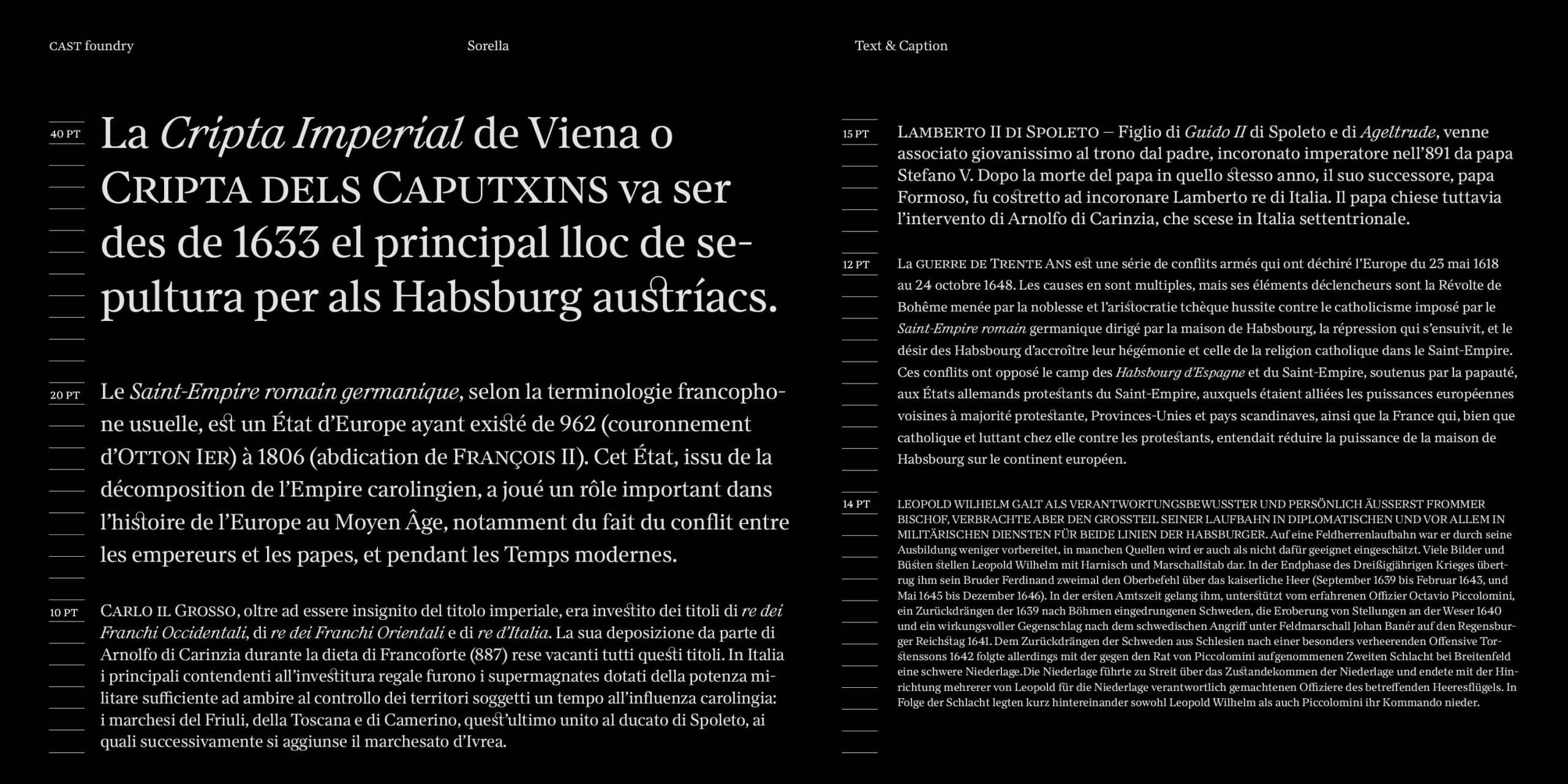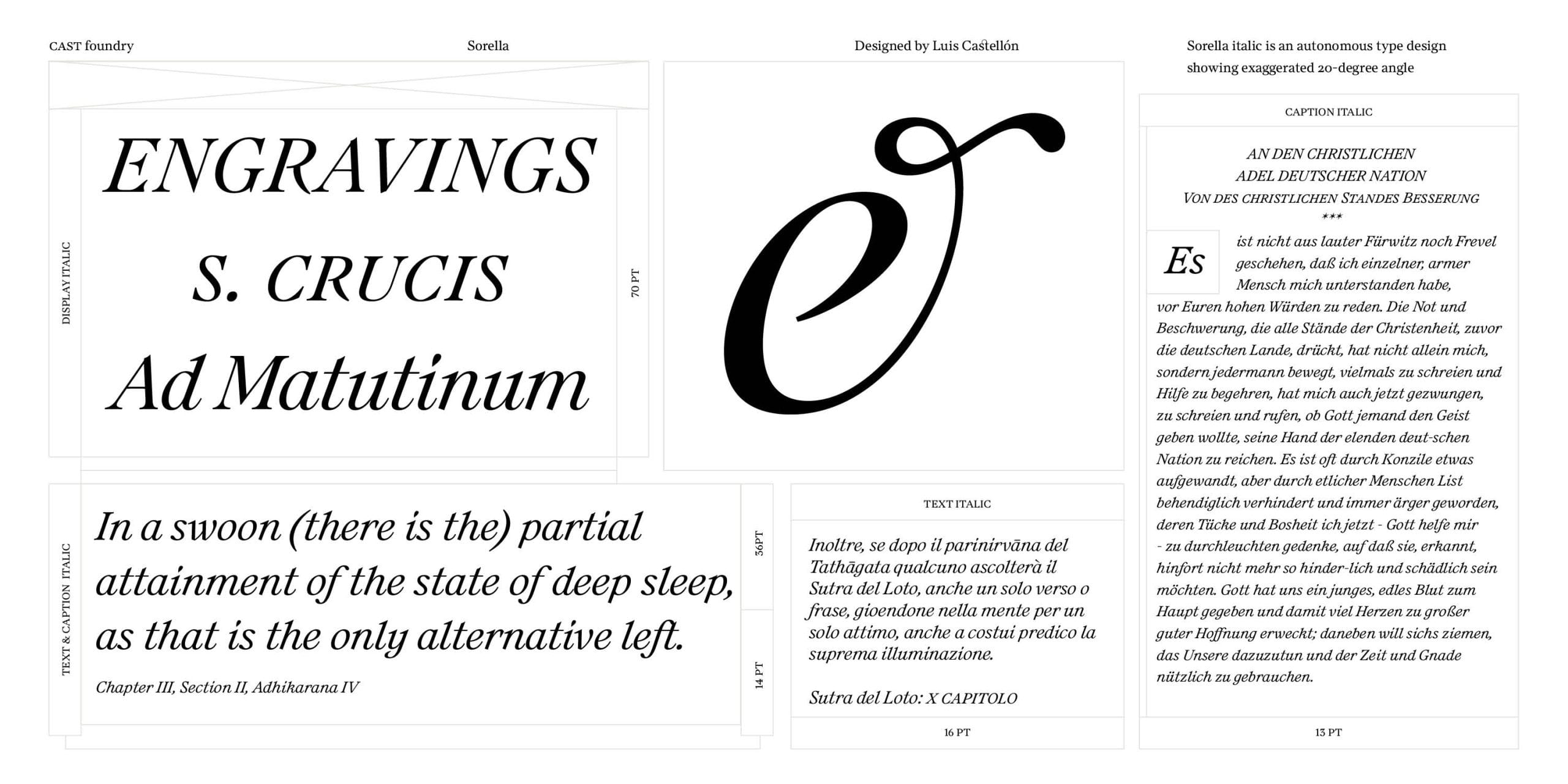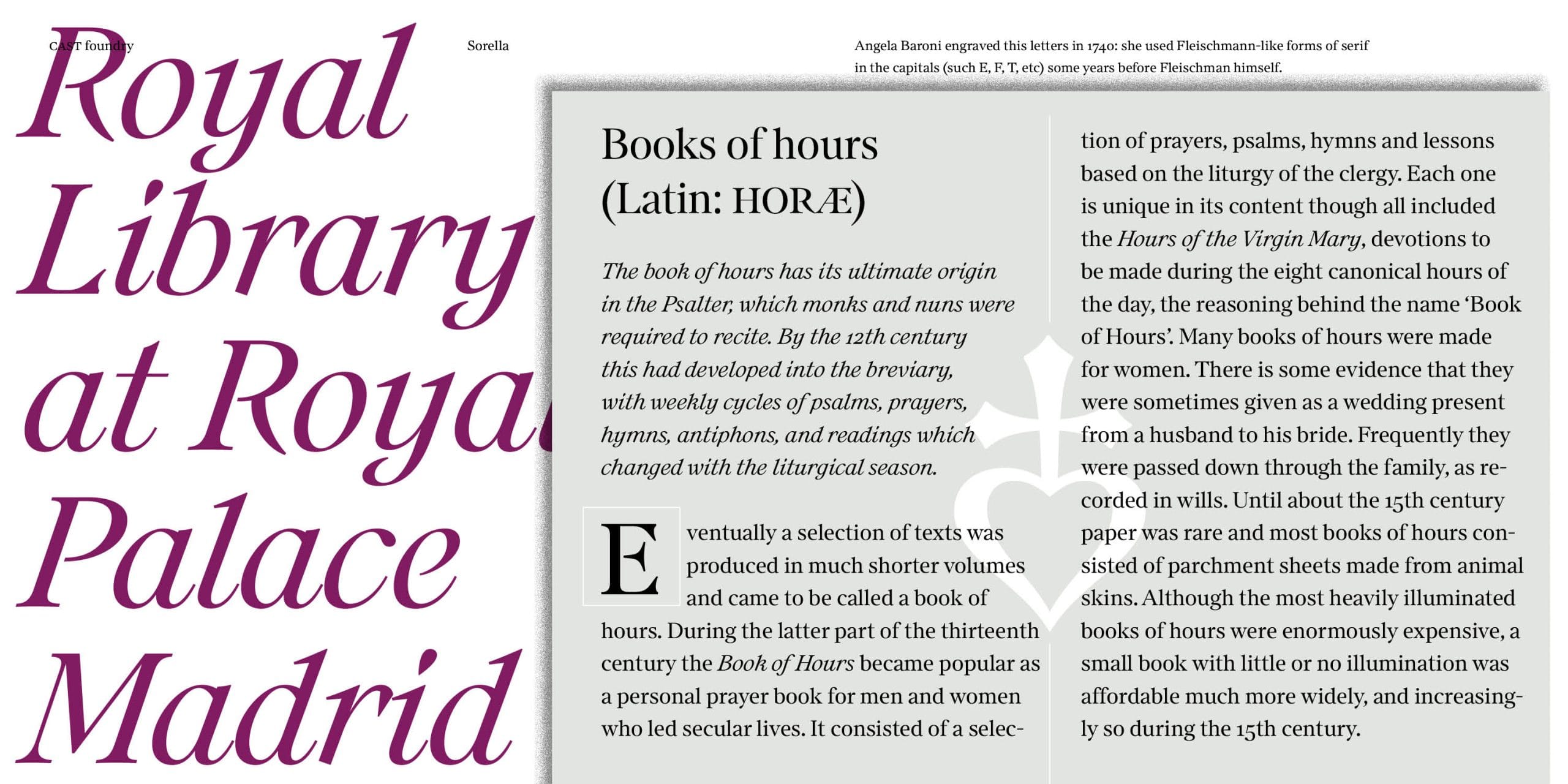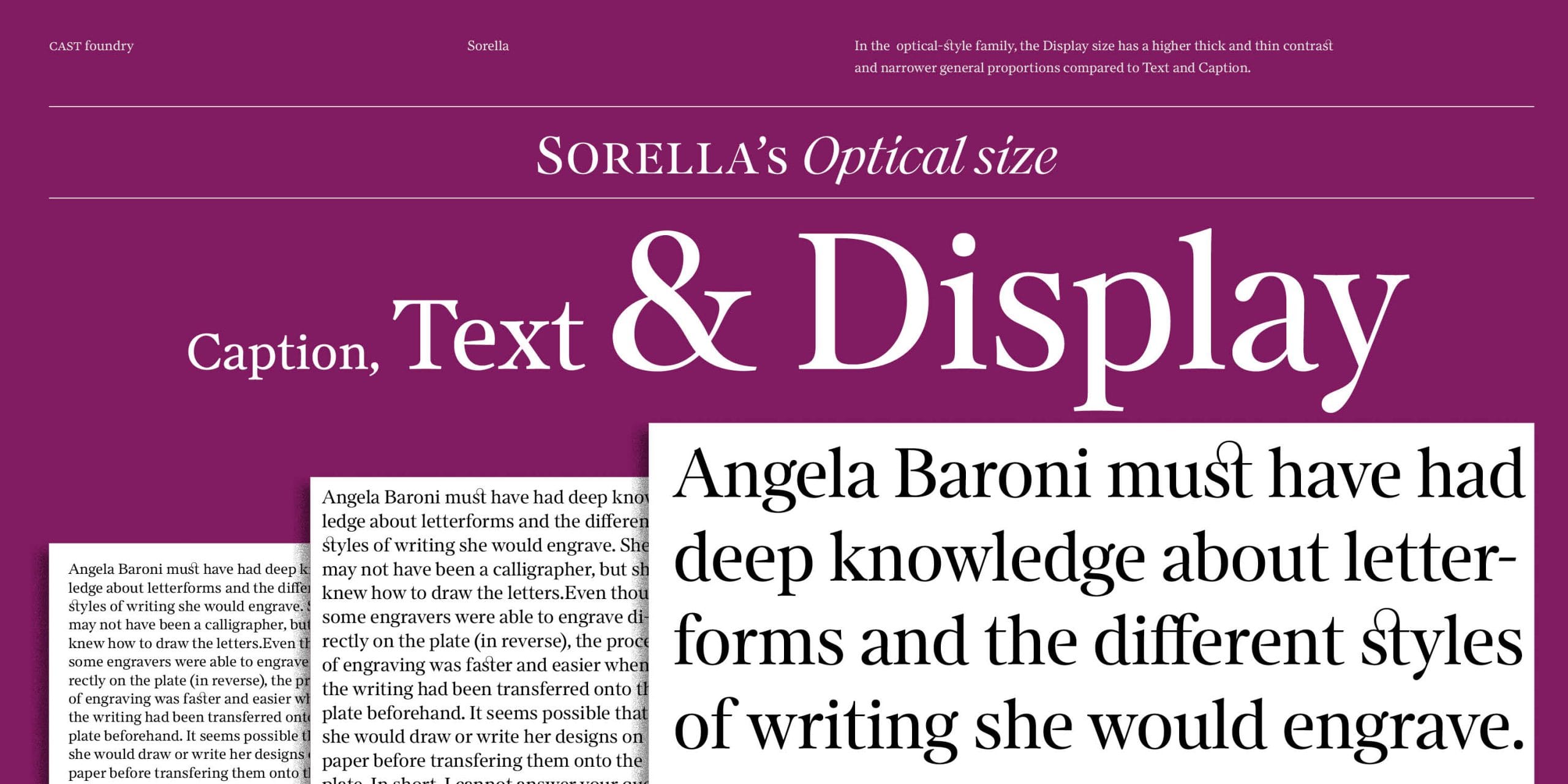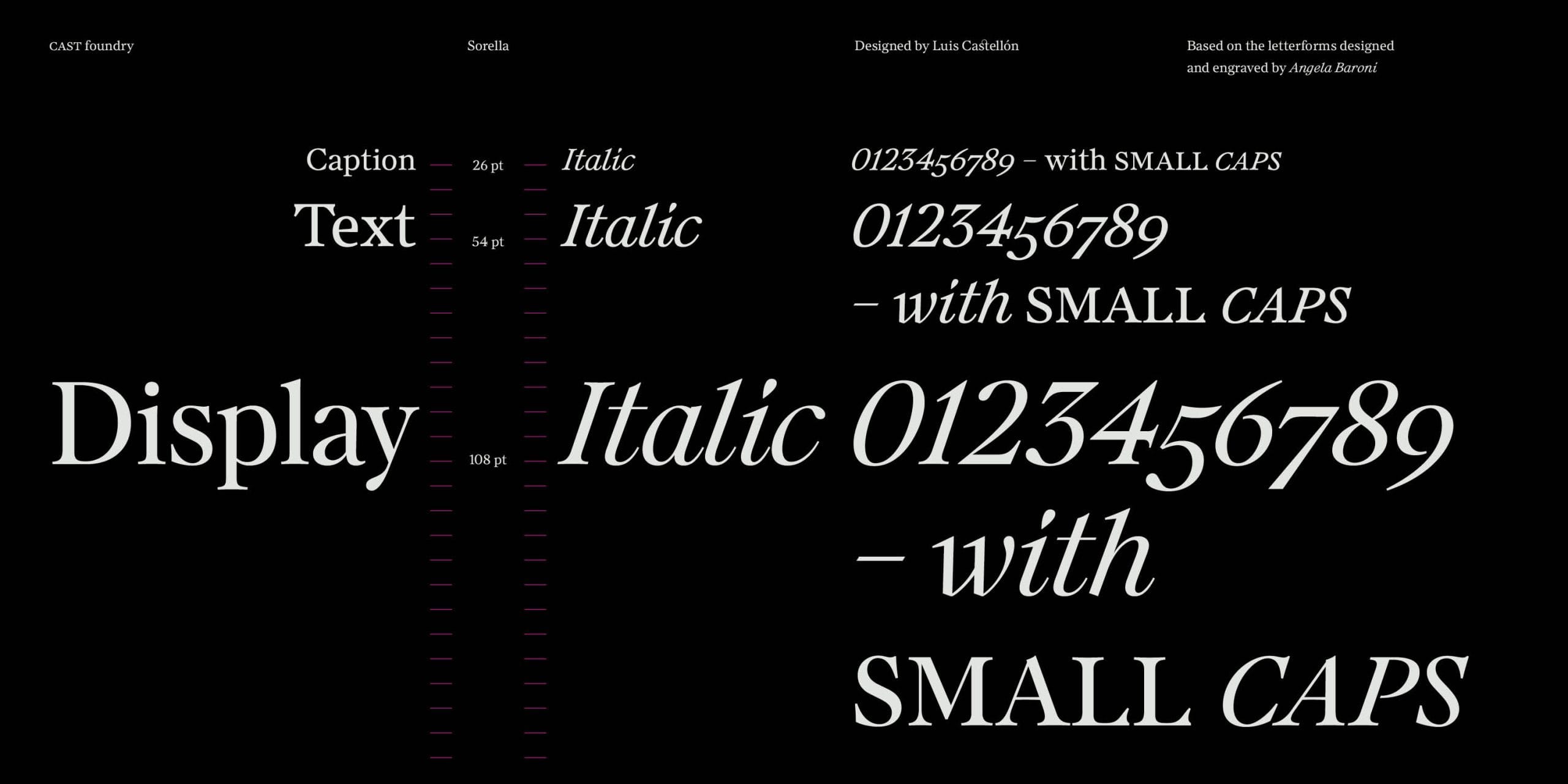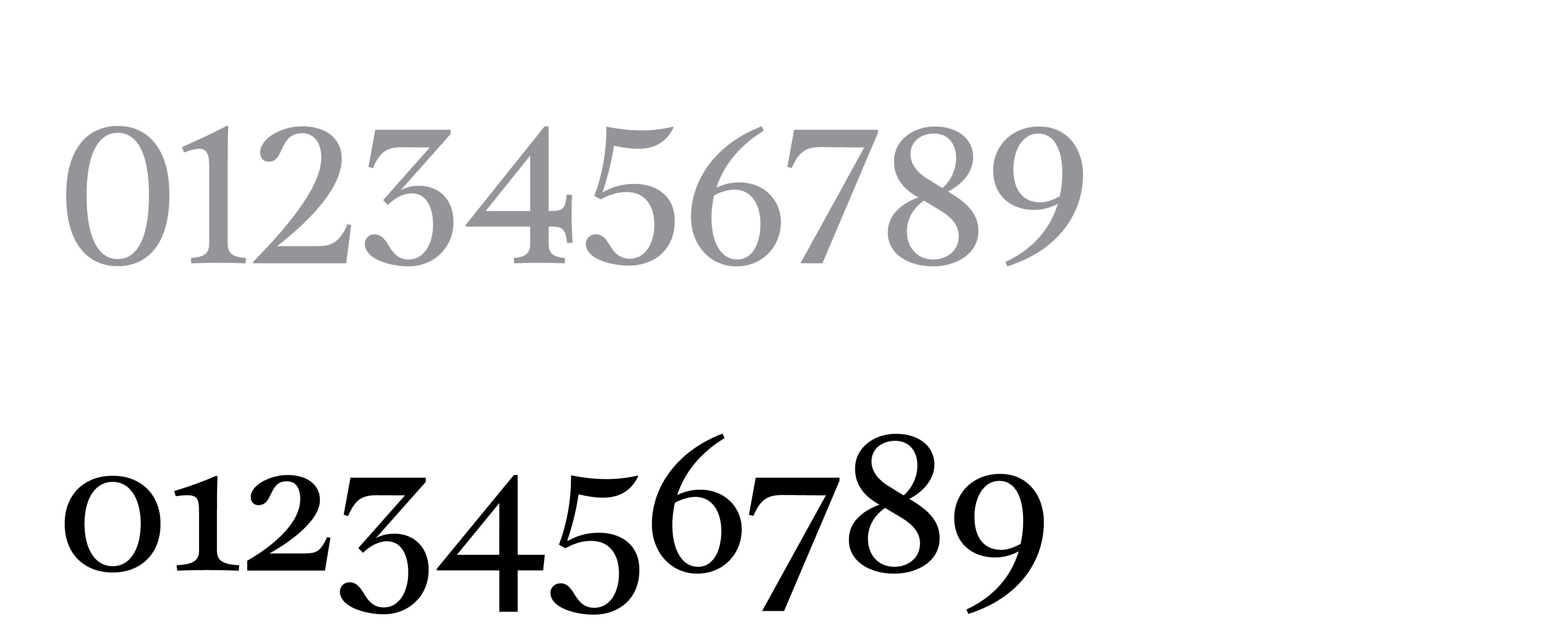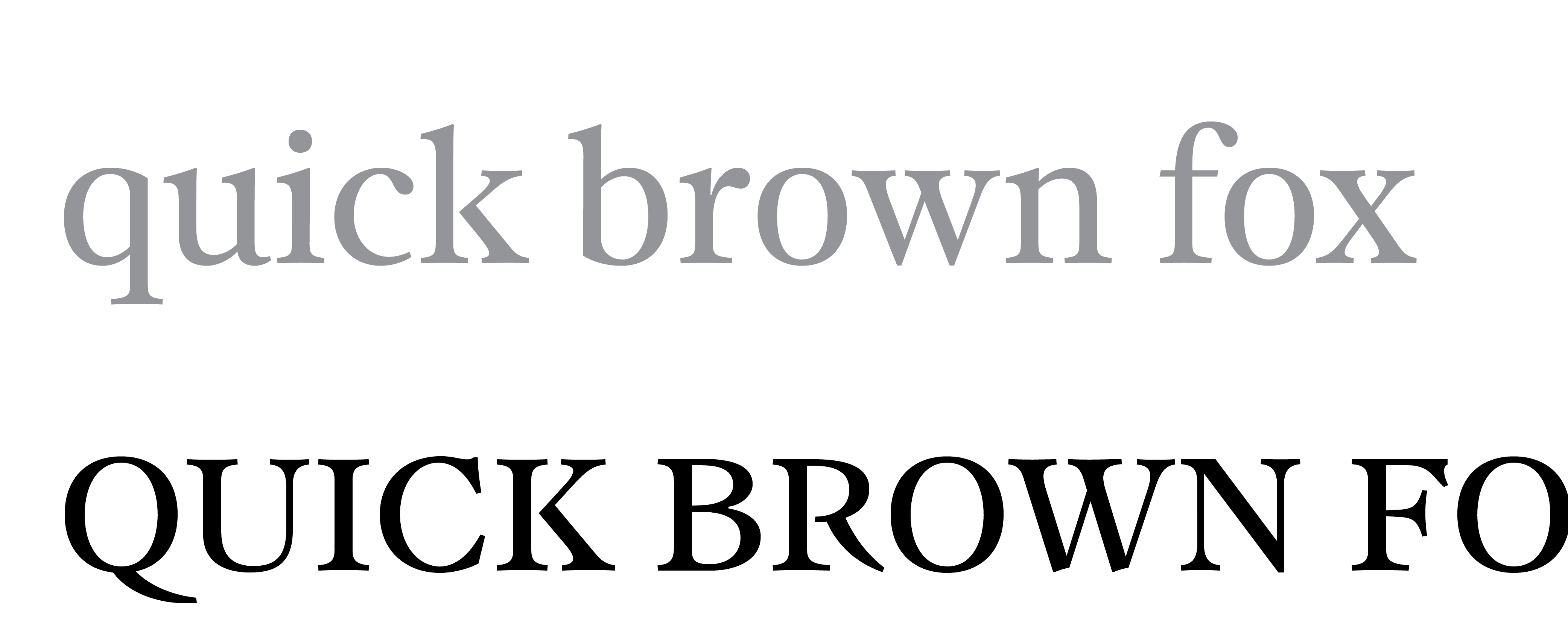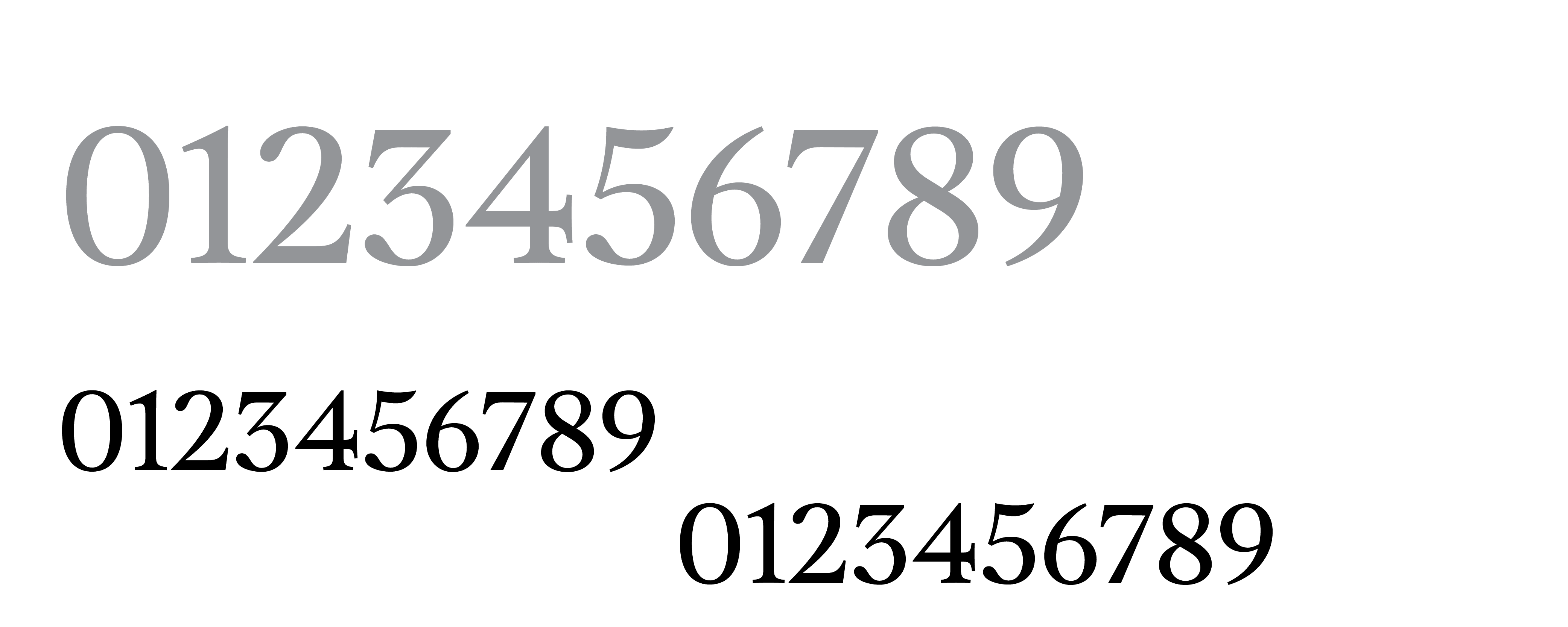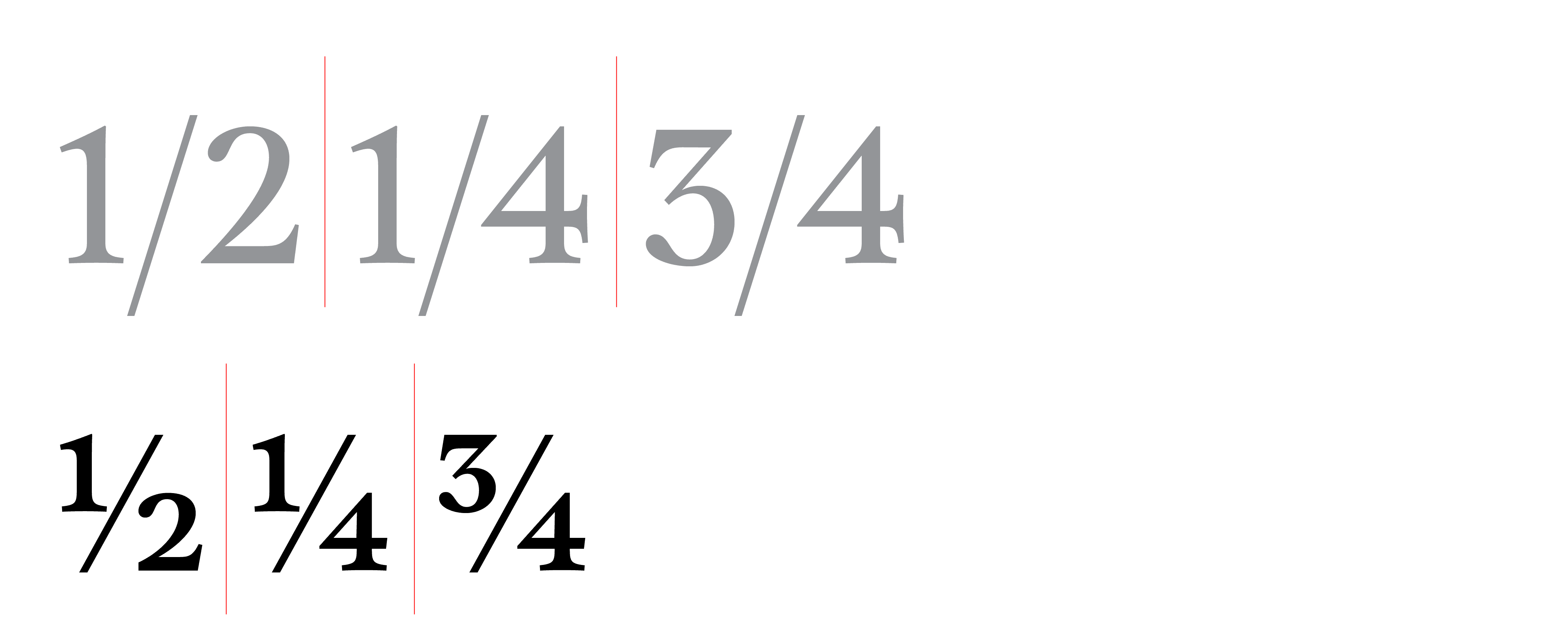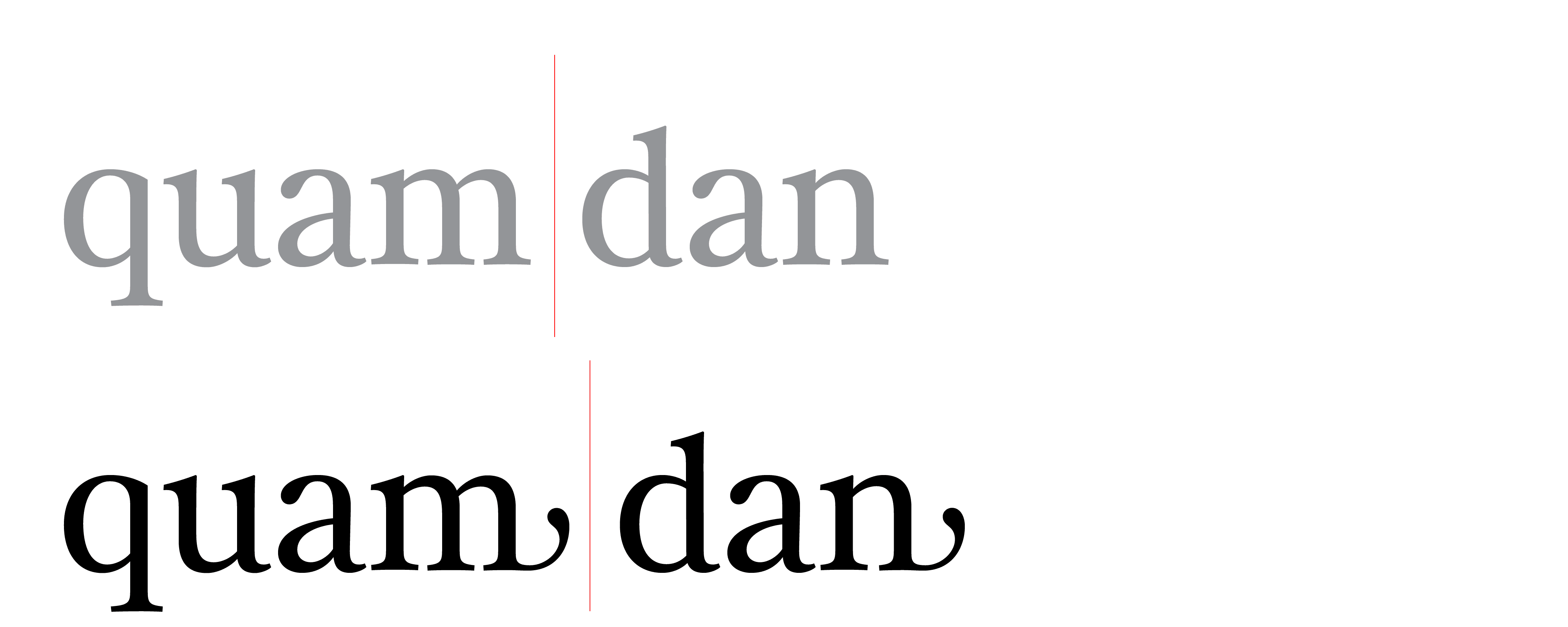
Sorella
Sorella is a seriffed roman and italic with a big x-height suitable for headlines, bodies of text and brand identities. It comes in five weights with matching italics, and in three optical sizes.
Its soft and slightly compact letters are carefully crafted and together with the sharp serifs and the bulbous terminals evoke an 18th-century atmosphere – a perception enhanced by some mannerist touches that reveal its engraved calligraphic origins, such as the unconnected parts of E, F, e and g. Other unconnected strokes are scattered throughout the alphabet and P, B and R also have open counters which contribute to a notable feeling of openness and lightness.
The lowercase of Sorella Italic is an autonomous design though it follows the same design parameters as the roman and works very well with it. The extreme 20-degree slope of this italic adds even more dynamism to its already dynamic characters.
Sorella and Sorella Italic include small caps, four styles of numerals (proportional and tabular, lining and old-style), fractions, superior and inferior numbers, and all the elements of a typeface needed to handle complex typography. As with all respectable families featuring optical sizing, the Display size has a higher thick/thin contrast and narrower general proportions compared to Text and Caption.
Designer
Luis Castellón
Sorella is based on the texts written and engraved by Angela Baroni for an exquisite book of hours of 400 pages, Beatae Mariae Virginis officium (Venice, 1740). In this rare volume, printed from engraved copper plates, Baroni opted for Fleischmann-like forms of serif in the capitals (such as E, F, T, etc) some years before Fleischman himself.
Oldstyle figures
Superscript and subscript
Fractions
Ligatures
Small caps
Ending forms (SS 01)